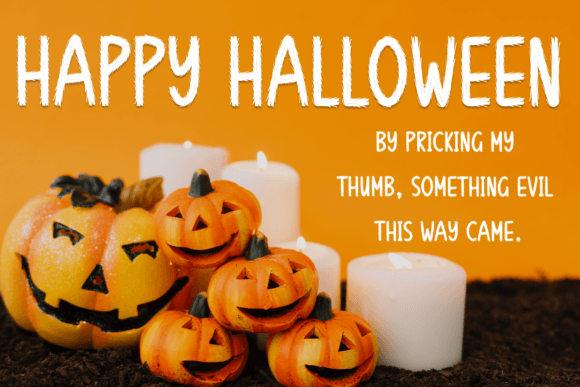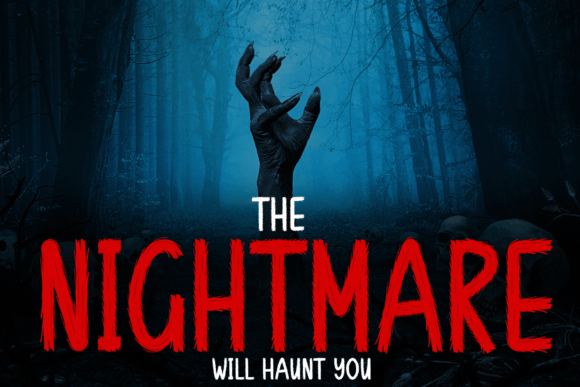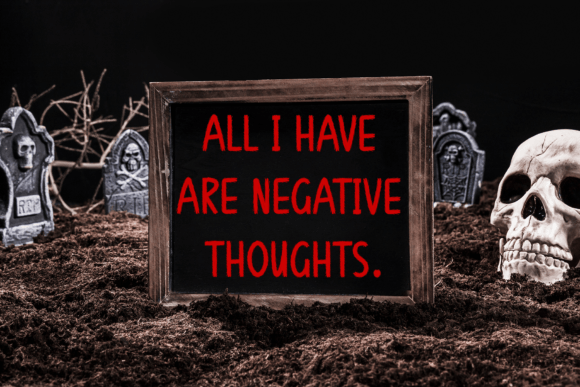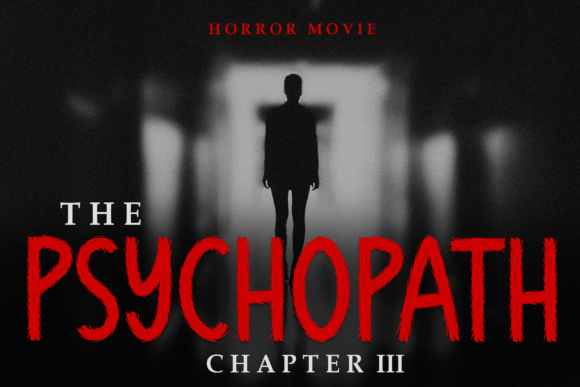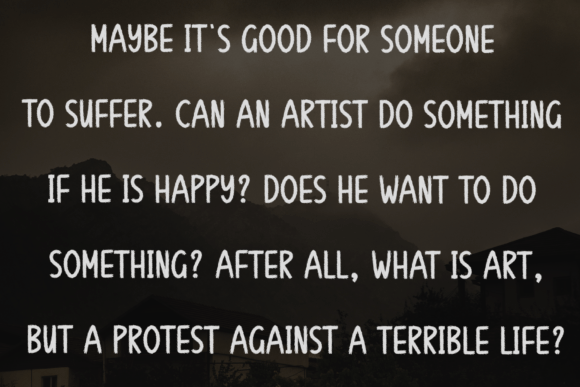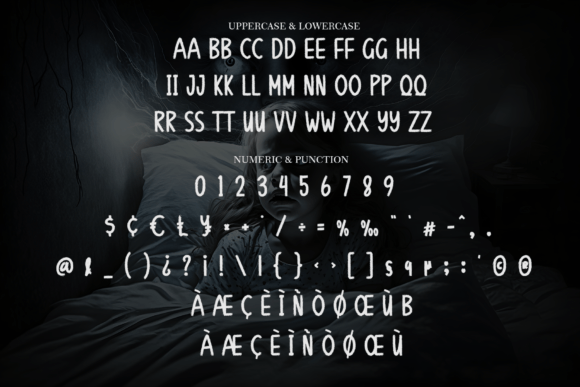
Dreadful Font: Add a Sweet and Friendly Touch to Your Designs
Are you looking for a font that can add a playful and charming touch to your designs? Look no further than the Dreadful Font! This sweet and friendly handwritten display font is perfect for creating eye-catching wedding invitations, cards, and other designs that require a fun and whimsical feel.
What is Dreadful Font?
Dreadful Font is a beautiful, handmade display font that exudes warmth and friendliness. Its unique and quirky design makes it stand out from other fonts, and its versatility ensures that it can be used in a variety of design projects. Whether you’re a designer, crafter, or DIY enthusiast, Dreadful Font is an excellent addition to your font collection.
Key Features of Dreadful Font
- Cute and Fun: Dreadful Font is designed to add a playful touch to your designs. Its sweet and friendly appearance makes it perfect for projects that require a lighthearted and whimsical feel.
- Handwritten: This font is carefully crafted to resemble handwritten text, giving it a personal and authentic feel.
- Display Font: Dreadful Font is a display font, making it ideal for headlines, titles, and other design elements that require a bold and eye-catching appearance.
- Versatile: This font can be used in a variety of design projects, including wedding invitations, cards, posters, and more.
Uses of Dreadful Font
Dreadful Font is an incredibly versatile font that can be used in a wide range of design projects. Here are some ideas to get you started:
- Wedding Invitations: Add a touch of whimsy and romance to your wedding invitations with Dreadful Font.
- Cards: Create beautiful and personalized cards for birthdays, anniversaries, and other special occasions.
- Posters: Use Dreadful Font to create eye-catching posters for events, promotions, and more.
- Social Media Graphics: Add a playful touch to your social media graphics, including Facebook posts, Instagram stories, and more.
- Crafting Projects: Use Dreadful Font to add a personal touch to your crafting projects, such as scrapbooking, journaling, and more.
Why Choose Dreadful Font?
With so many fonts available, why choose Dreadful Font? Here are just a few reasons:
- Unique Design: Dreadful Font has a unique and distinctive design that sets it apart from other fonts.
- Easy to Read: Despite its playful appearance, Dreadful Font is easy to read and understand.
- High-Quality: This font is carefully crafted to ensure that it is of the highest quality, with clear and crisp lines.
Tips for Using Dreadful Font
Here are a few tips for getting the most out of Dreadful Font:
- Use it Sparingly: Dreadful Font is a bold and eye-catching font, so use it sparingly to avoid overwhelming your design.
- Pair it with Other Fonts: Experiment with pairing Dreadful Font with other fonts to create a unique and visually appealing design.
- Adjust the Size: Adjust the size of Dreadful Font to create visual interest and hierarchy in your design.
- Experiment with Colors: Try out different colors with Dreadful Font to add an extra layer of personality to your design.
Dreadful Font is a sweet and friendly handwritten display font that is perfect for adding a playful touch to your designs. With its unique design, versatility, and ease of use, it’s an excellent choice for designers and crafters looking to create eye-catching wedding invitations, cards, and other designs. So why not give Dreadful Font a try and see how it can elevate your designs?